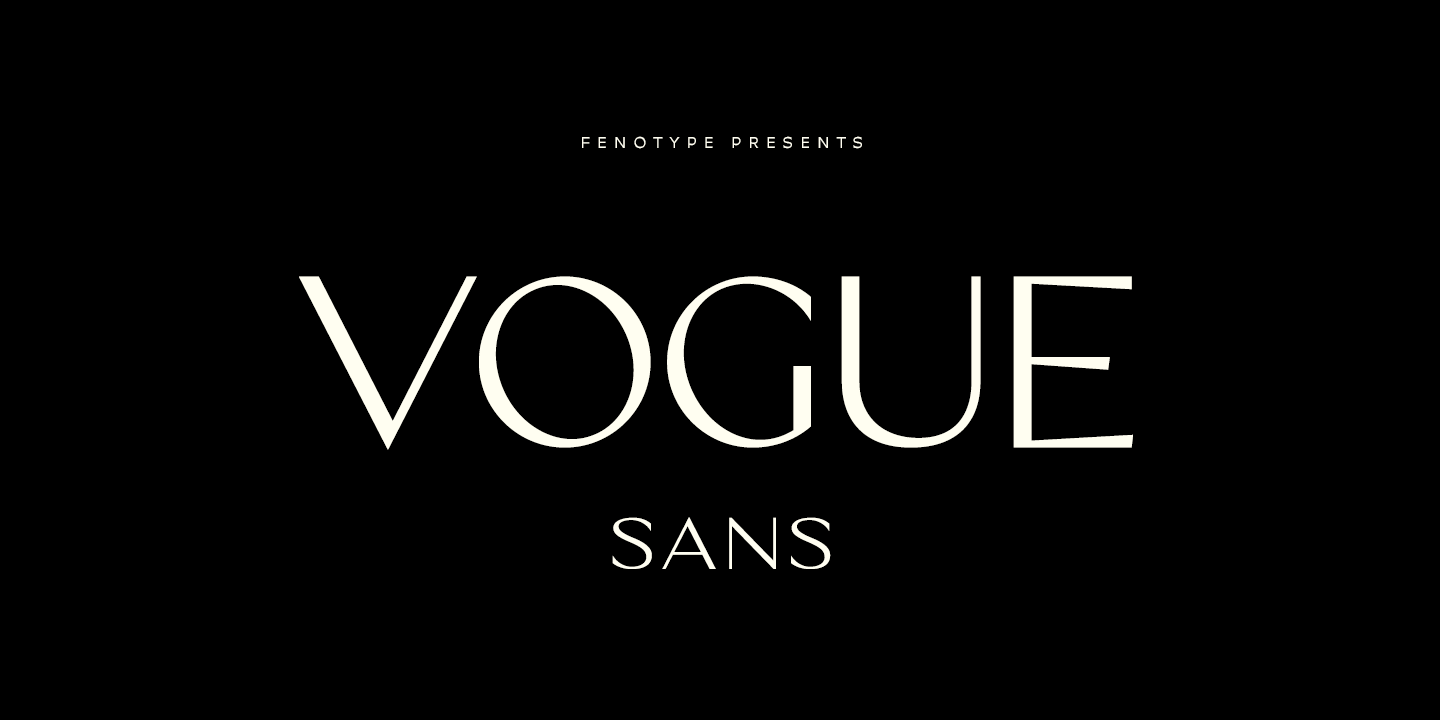
Perfect for high-fashion branding, luxury magazine layouts, cosmetic packaging design, fashion week materials, designer boutique signage, beauty campaign graphics, upscale lifestyle marketing, and premium editorial publications.
This font is exciting because it embodies the sophisticated elegance and cutting-edge style of haute couture fashion with sleek, modern letterforms that capture the glamorous essence and trendsetting spirit of the international fashion industry.
Enter the world of haute couture sophistication with Vogue Sans Font Free Download, an exquisite typeface that embodies the pinnacle of fashion elegance and editorial excellence. This exceptional font brings the sleek sophistication and trendsetting authority of the international fashion industry to contemporary design projects, making it indispensable for luxury brands and style-conscious organizations seeking to establish themselves at the forefront of fashion and beauty markets.
Vogue Sans Font features elegantly refined letterforms with fashion-forward characteristics and sophisticated proportions that immediately communicate luxury and editorial authority. The meticulously crafted characters combine runway aesthetics with exceptional readability, creating immediate associations with high fashion, beauty innovation, and the exclusive lifestyle that defines luxury fashion brands and premium beauty companies worldwide.
The font's remarkable style authority makes it ideal for fashion houses, beauty brands, and luxury lifestyle companies where conveying trendsetting sophistication and editorial credibility is essential for market leadership and brand prestige. Whether you're designing campaigns for international fashion weeks showcasing designer collections, creating marketing materials for luxury cosmetic brands launching premium products, or developing brand identities for high-end boutiques serving discerning clientele, Vogue Sans Font delivers the authentic fashion aesthetic that resonates with style-conscious consumers and industry professionals.
Fashion industry leaders and luxury beauty brands worldwide rely on the Vogue Sans Font Free Download for projects requiring editorial sophistication and fashion authority. The font works exceptionally well for luxury fashion magazines setting global style trends, premium beauty retailers showcasing exclusive products, designer fashion houses establishing brand prestige, and any organization seeking to establish connections with audiences who value cutting-edge style and fashion innovation leadership.
The comprehensive Vogue Sans Font family includes multiple weights and styles that work harmoniously together, enabling fashion communicators to create sophisticated editorial hierarchies for complex luxury content. Each variation maintains the signature fashion character while providing complete design flexibility for diverse luxury applications, from detailed fashion editorials to bold advertising campaigns that capture attention in competitive fashion markets.
This typeface excels in both high-end print applications where visual impact determines brand perception and digital platforms where fashion content must engage style-conscious audiences across multiple touchpoints. The font's technical precision ensures flawless rendering across all luxury marketing channels, from glossy magazine spreads to responsive fashion websites that must perform excellently across various devices and screen technologies.
Vogue Sans Font's fashion-forward aesthetic enhances the perceived value of luxury content while maintaining the contemporary appeal necessary for engaging younger fashion enthusiasts entering premium markets. The font's sophisticated character helps establish immediate credibility with fashion audiences while projecting the innovation leadership that drives industry trends.